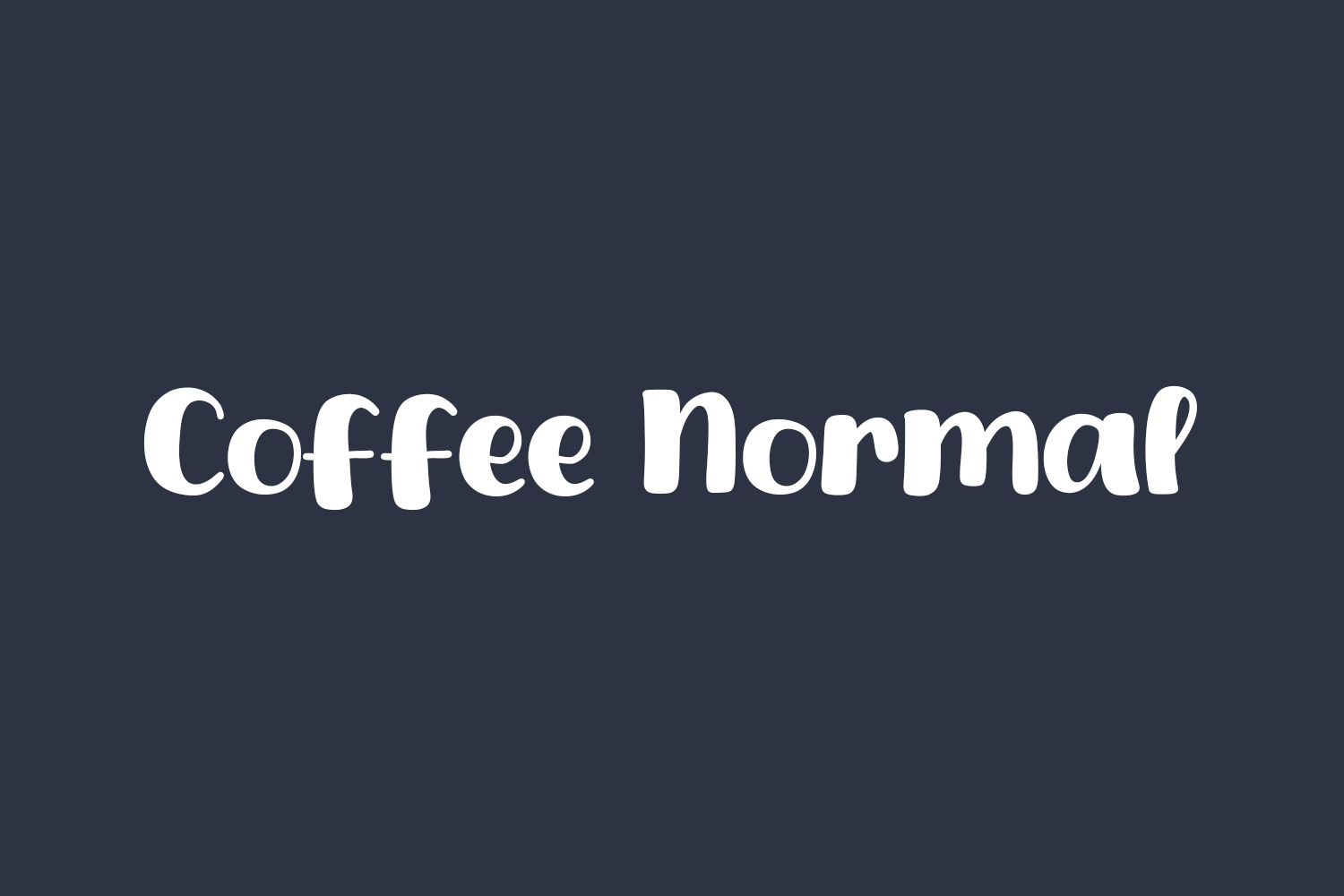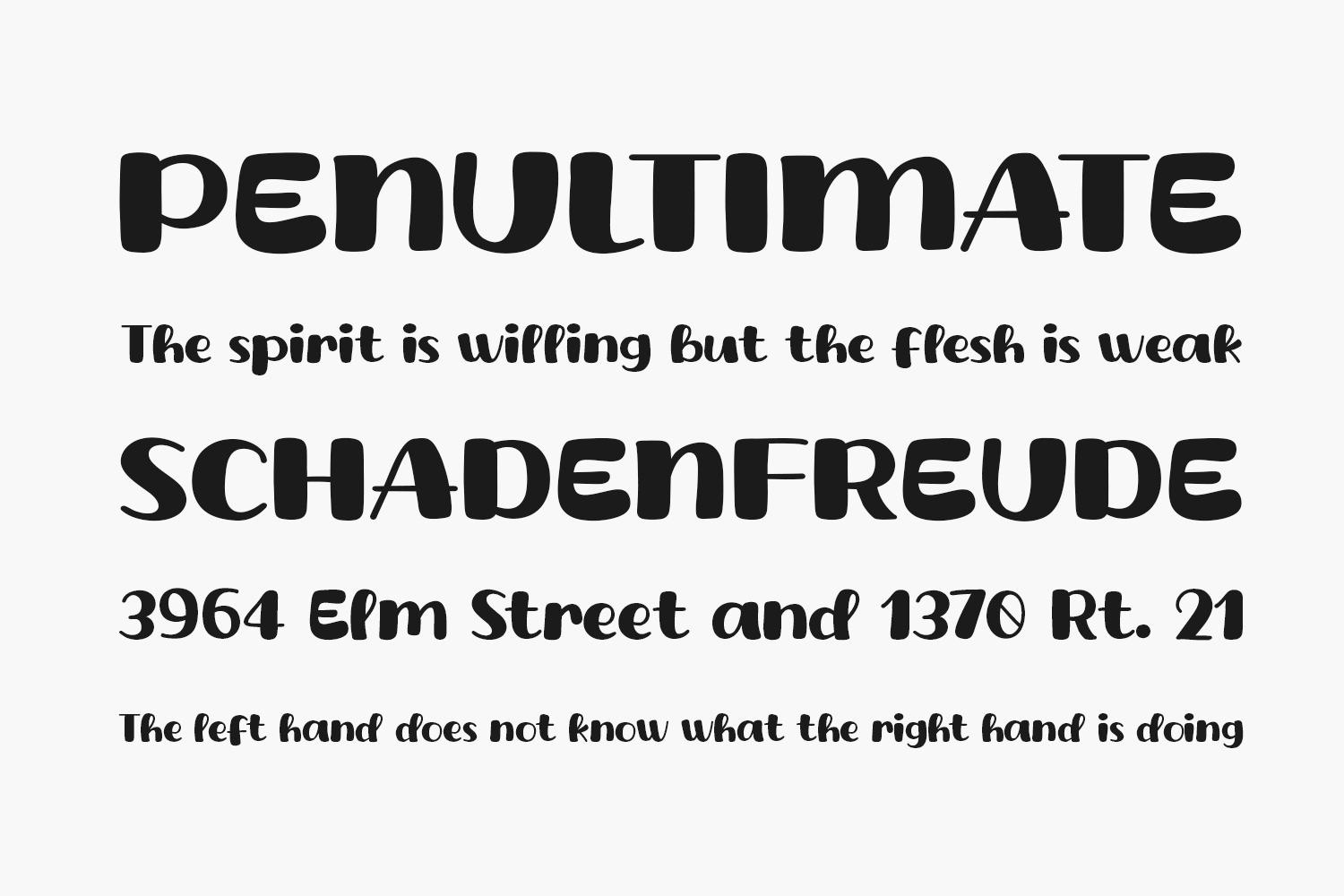
Coffee Normal – Free Cute Hand‑Drawn Display Font with Warm Vibes
Coffee Normal is a delightful handwritten display font designed by Khurasan. Its warm, playful strokes and soft, rounded characters evoke coziness and cheer—perfect for greeting cards, party invitations, children’s books, social media quotes, and cozy brand identities. Available in TTF and OTF formats, Coffee Normal is free for both personal and commercial use.
Why Choose Coffee Normal?
- Adorable Hand‑Drawn Style: Soft, organic strokes create a friendly, whimsical feel.
- Versatile Display Font: Great for cards, packaging, banners, logos, and quote designs.
Where to Use Coffee Normal?
- Greeting Cards & Invitations: Adds a cozy, personal touch to celebrations, thank-yous, and milestones.
- Children’s Books & Educational Materials: Friendly letterforms perfect for young readers.
- Kids’ Packaging & Toys: Ideal for bright, playful product labels and packaging.
- Social Media Posts: Use for warm quote overlays, story graphics, and blog visuals.
- Branding for Cozy Businesses: Great for cafes, bakeries, handmade product lines, and lifestyle blogs.
Design Tips with Coffee Normal
Use medium to large sizes (24pt+) to highlight its charming curves. Pair with clean sans-serifs like Headwar or Oxford Street to maintain readability. Select earthy, pastel, or neutral color schemes to enhance its warm, inviting vibe. Try it on textured backgrounds like kraft paper or wood for a cozy, handmade look.